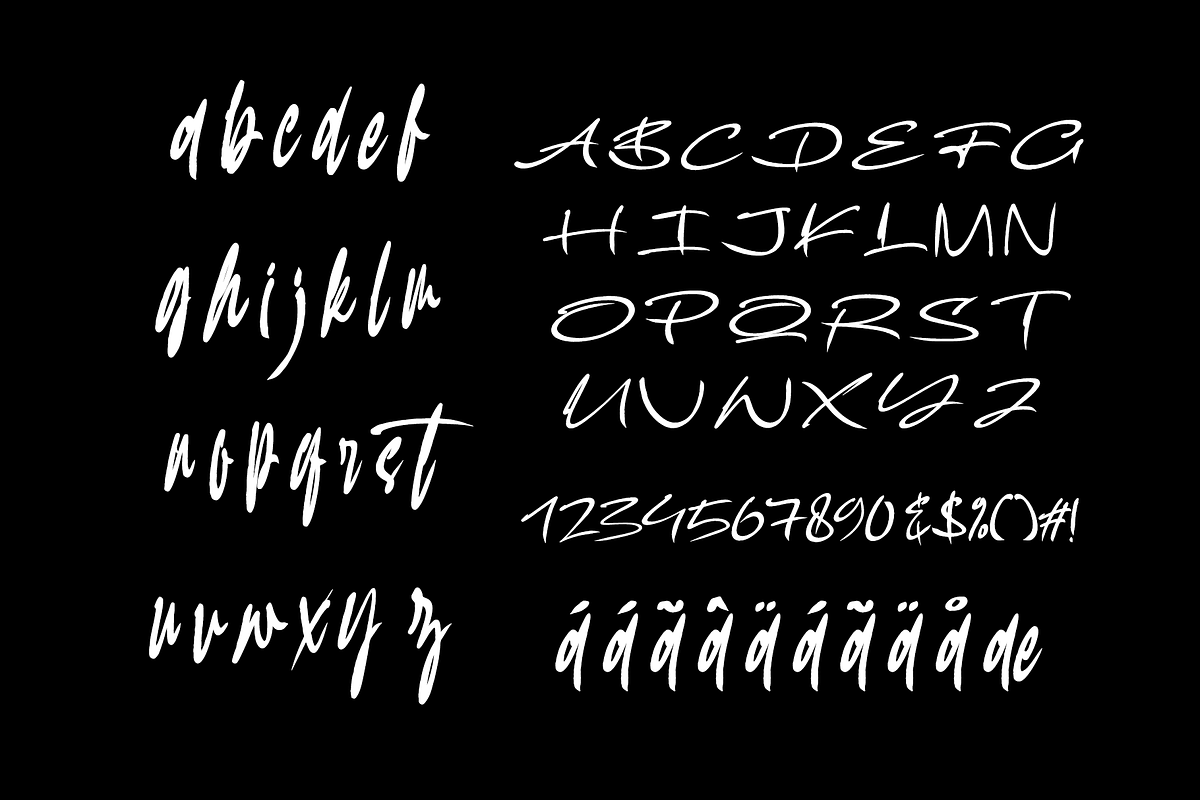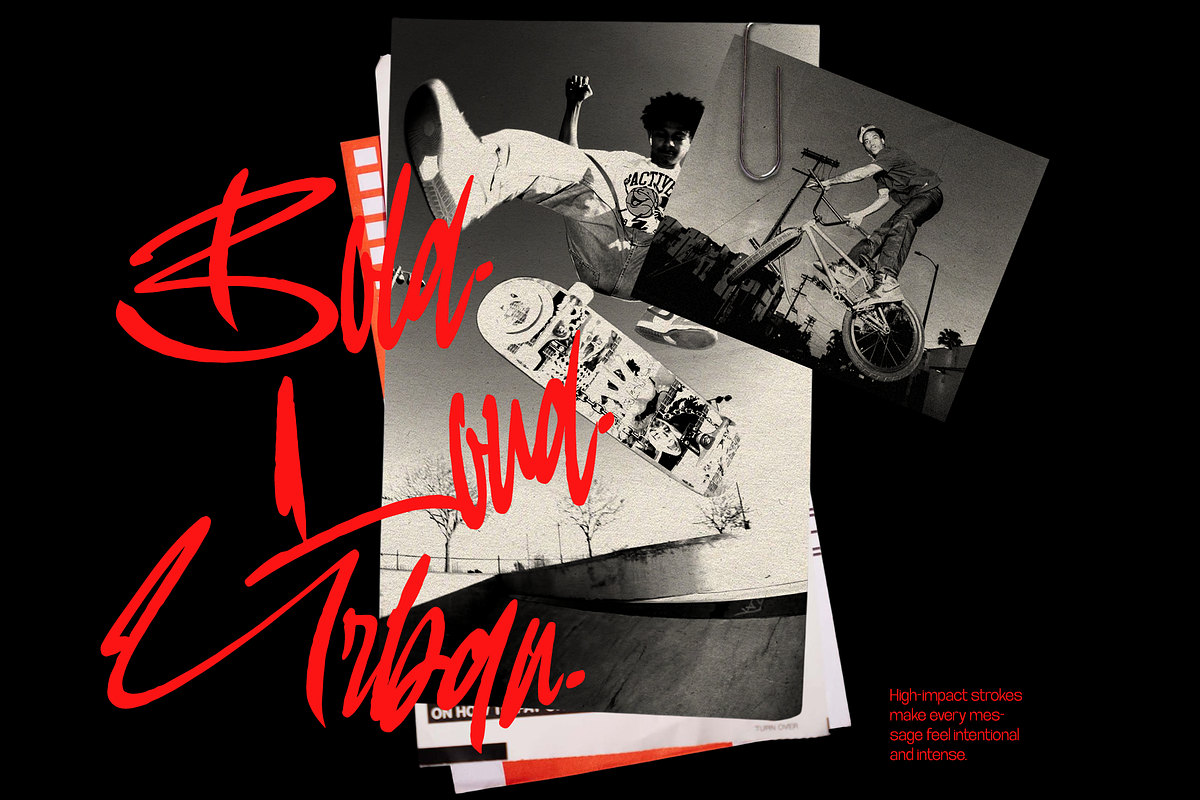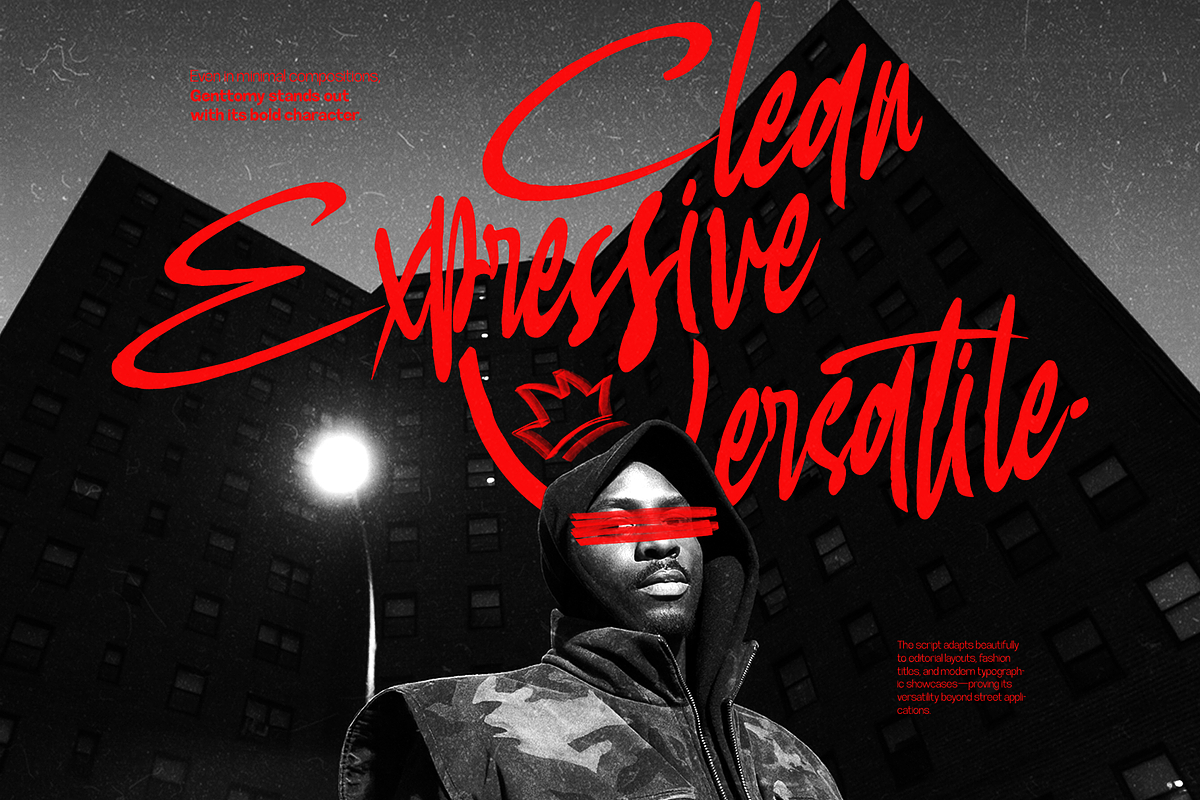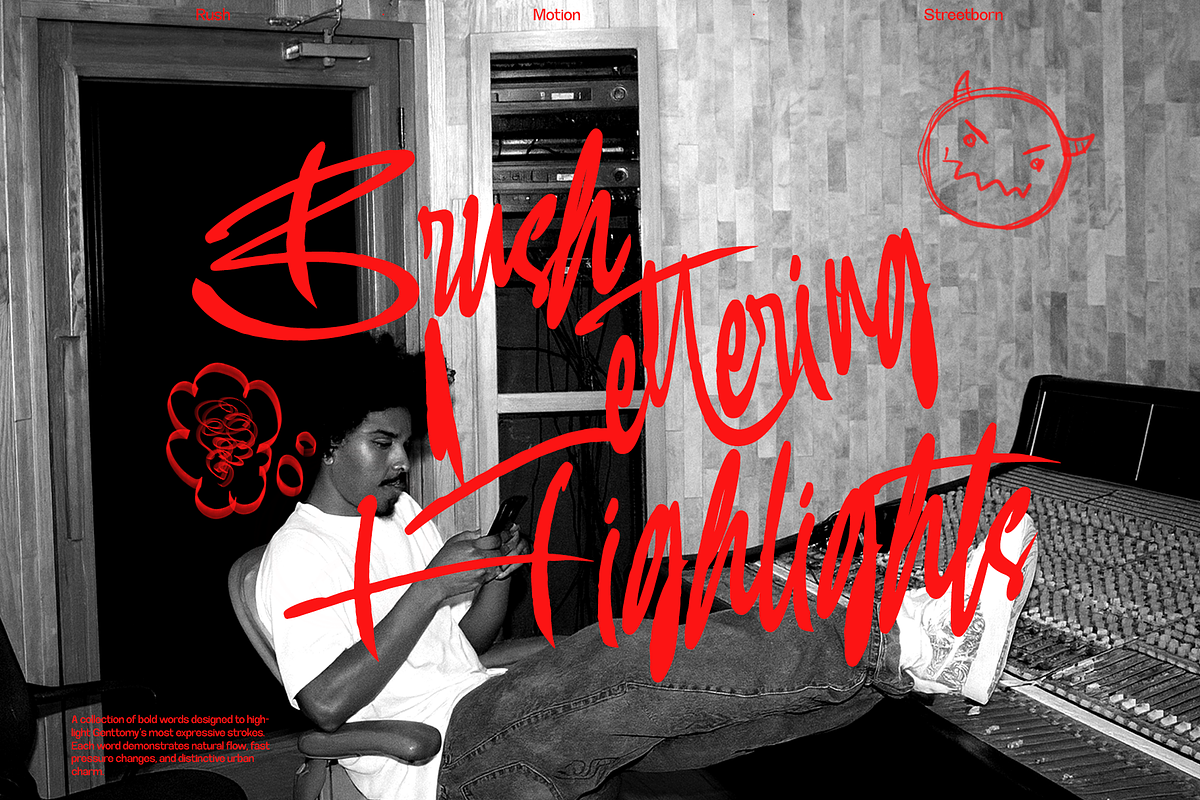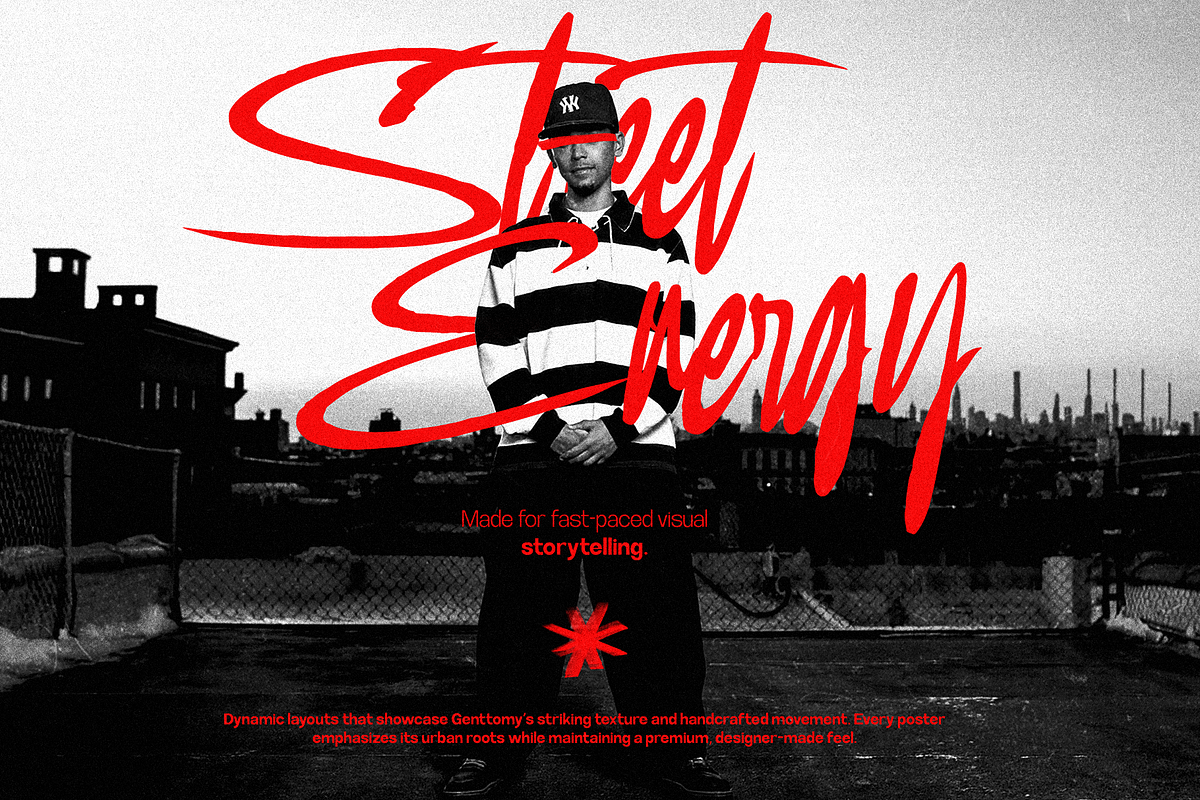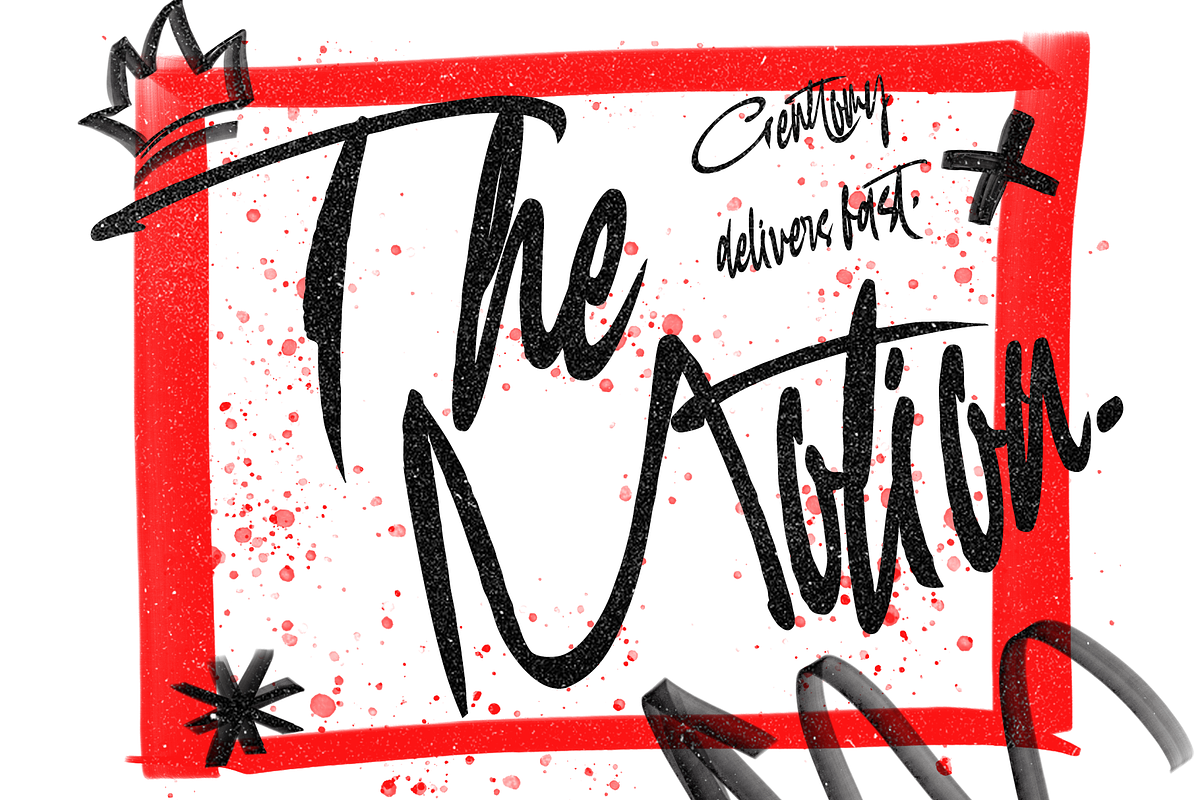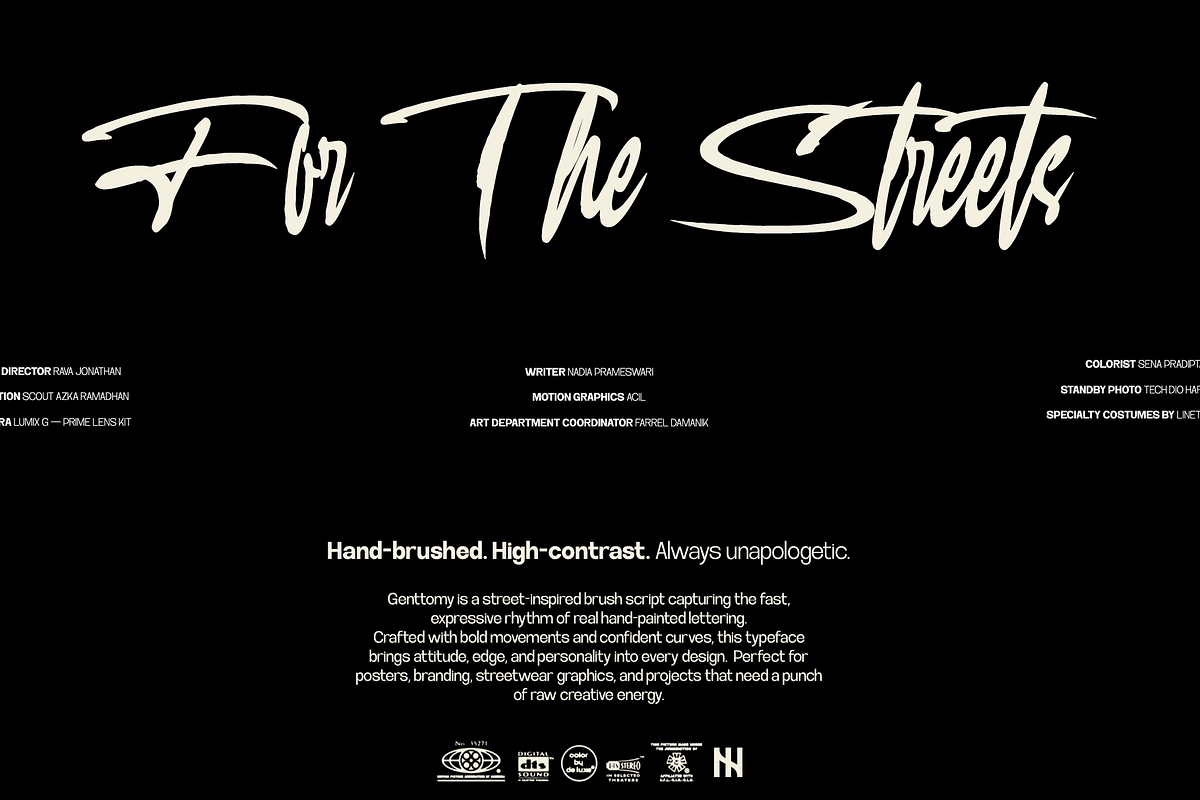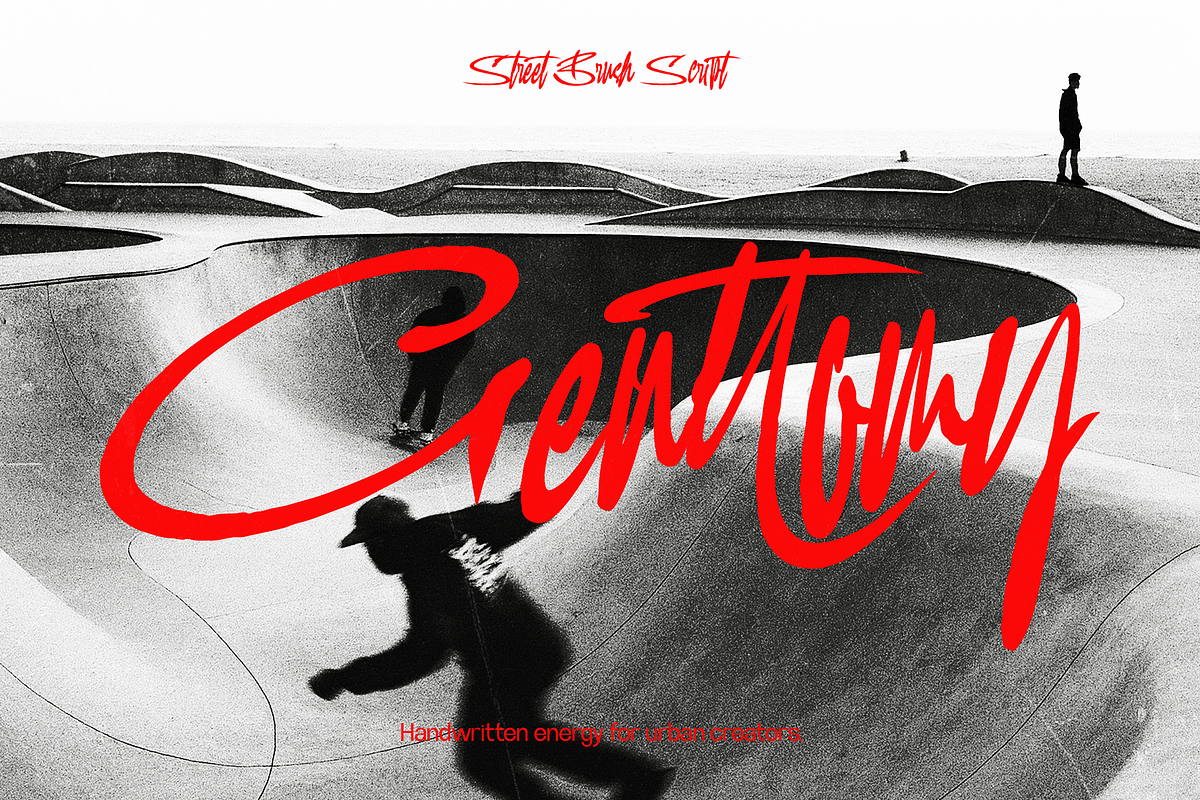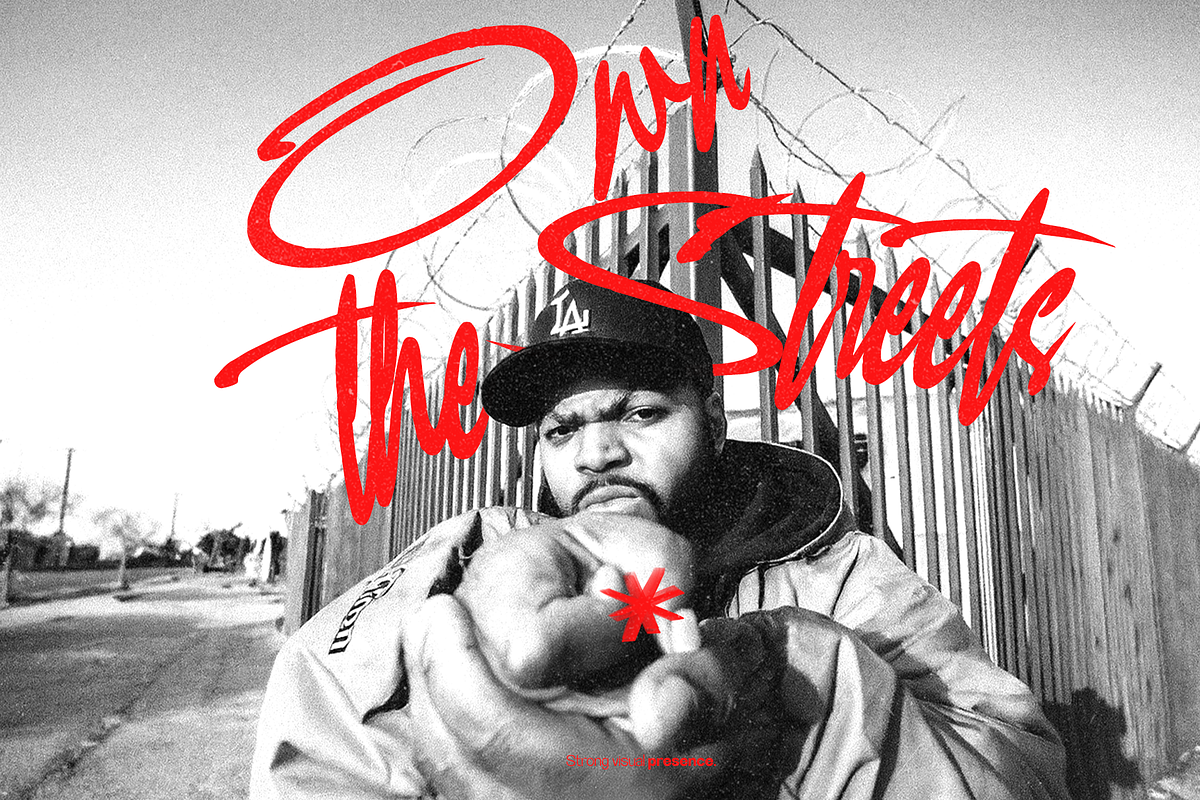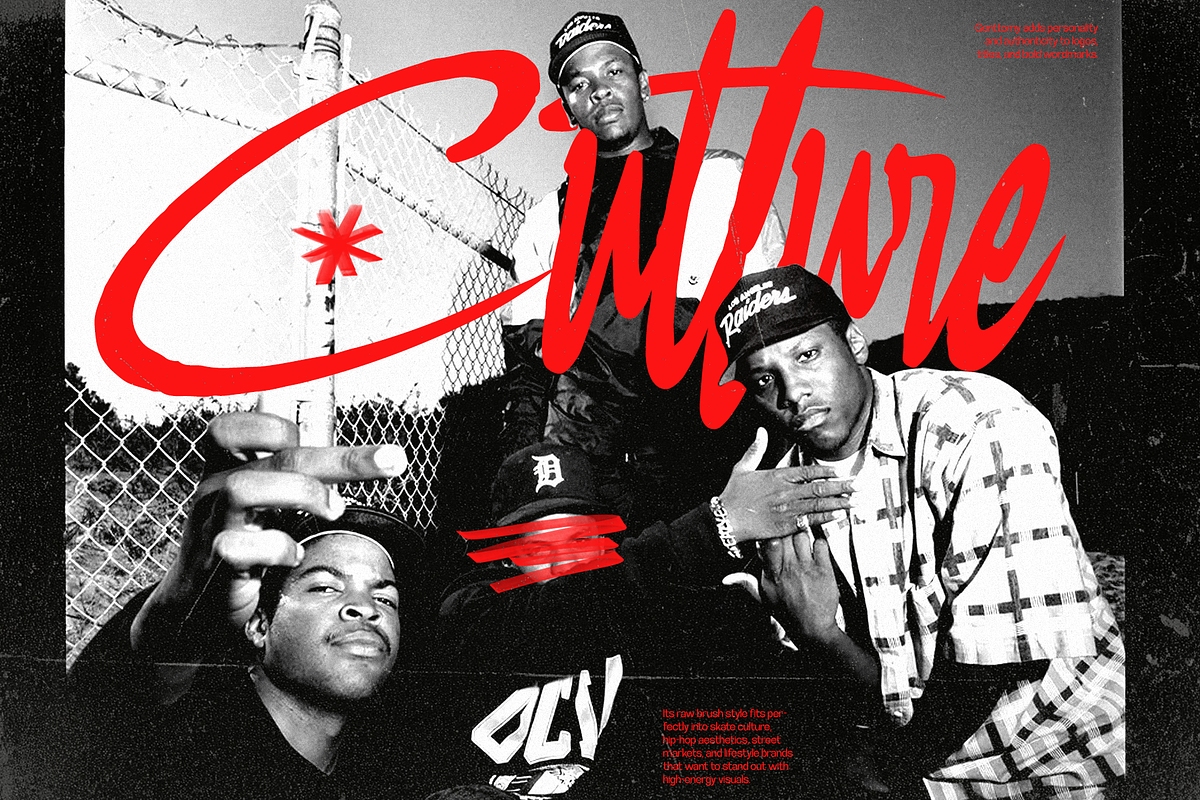
Genttomy - Street Brush Script
Genttomy is a dynamic street brush script typeface inspired by skate culture, urban movement, handwritten tags, independent music, and contemporary street graphics.
Its fast strokes, elongated terminals, and energetic rhythm create typography that feels spontaneous, rebellious, and confident. Century is designed for creative projects that need a bold handwritten voice with authentic urban character.
Genttomy combines expressive brush lettering with a sharp and recognizable display structure. Its sweeping uppercase characters create immediate visual impact, while the connected lowercase letters bring speed and natural movement to every word.
The typeface works especially well for large headlines, logos, posters, album artwork, skate graphics, campaign titles, and short promotional statements. Its dramatic strokes pair naturally with grainy photography, photocopy textures, halftone effects, collage layouts, and high-contrast color palettes.
Use Genttomy as the central display font, then combine it with a condensed sans serif or neutral grotesque typeface for supporting information.
Dynamic street brush script style
Fast and expressive handwritten movement
Bold sweeping uppercase characters
Energetic connected lowercase forms
Sharp terminals and extended brush strokes
Natural handmade irregularities
Strong visual impact at medium and large sizes
Suitable for print and digital applications
Ideal for titles, logos, headlines, and short phrases
Works well with urban, skate, music, and sports visuals
Suitable for outlines, shadows, textures, and layered effects
Easy to pair with condensed sans serif and grotesque fonts
Ideal For / Use Cases
Skateboard branding
Streetwear identities
Urban poster design
Music album artwork
Concert and festival posters
Band logos
Sports branding
Automotive graphics
Motorcycle branding
Logo and wordmark design
Editorial headlines
Magazine covers
Product packaging
Beverage labels
YouTube thumbnails
Photography overlays
Promotional campaigns
Event graphics
Sticker designs
Merchandise graphics
T-shirt designs
Youth culture projects
Creative advertising
Contemporary visual identities
Use Century at medium or large sizes to preserve its expressive brush details and extended strokes. It works best for logos, headlines, campaign titles, posters, and short promotional phrases rather than long paragraphs.
Pair it with a clean condensed sans serif for dates, descriptions, credits, and supporting information. Black, white, red, and high-contrast photography can strengthen its street-inspired personality.